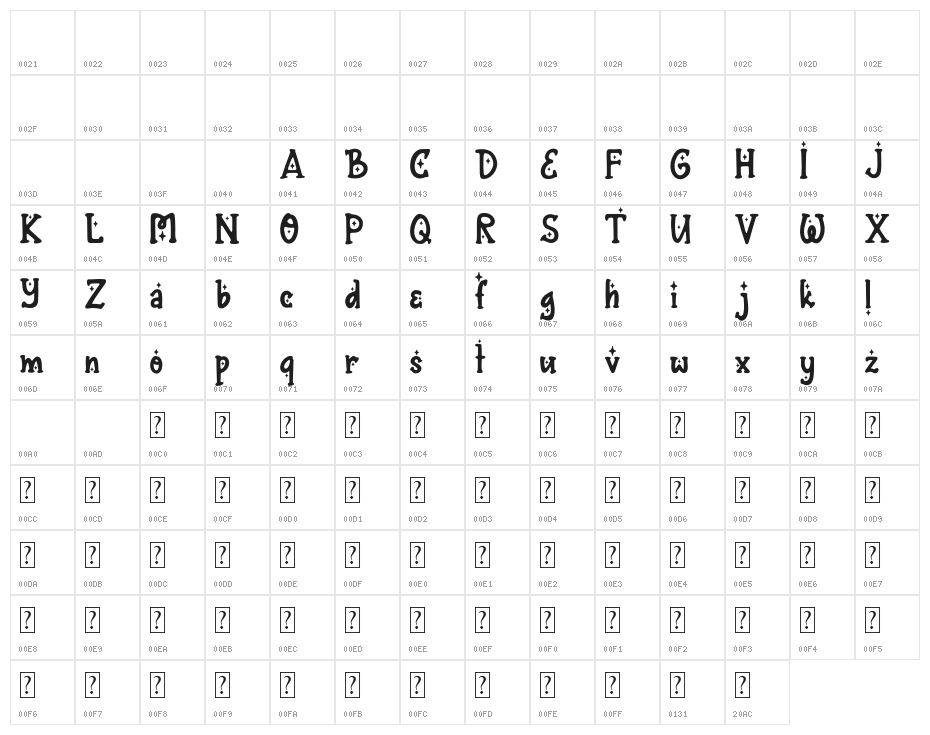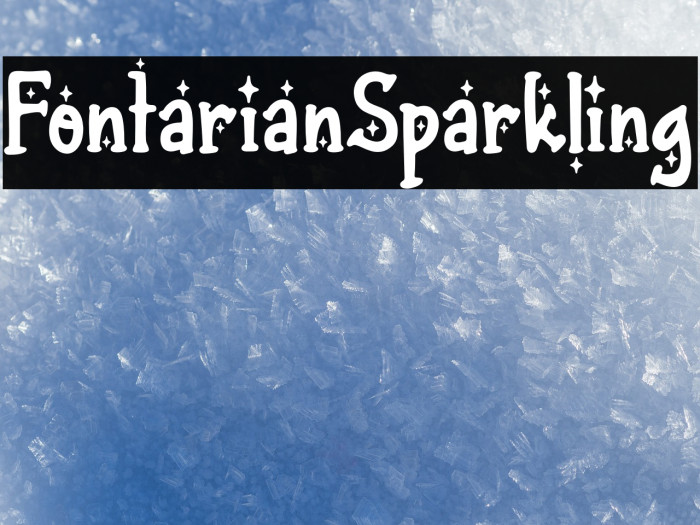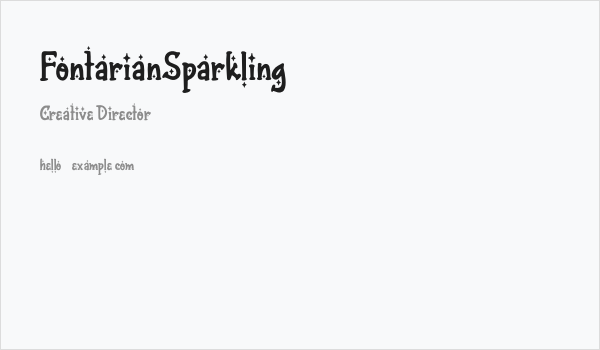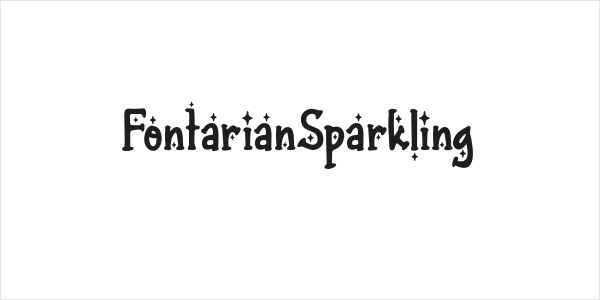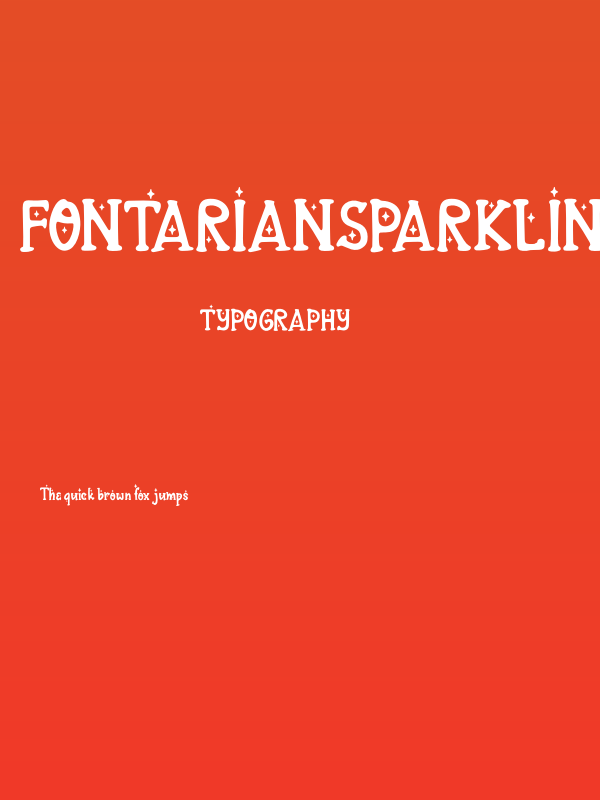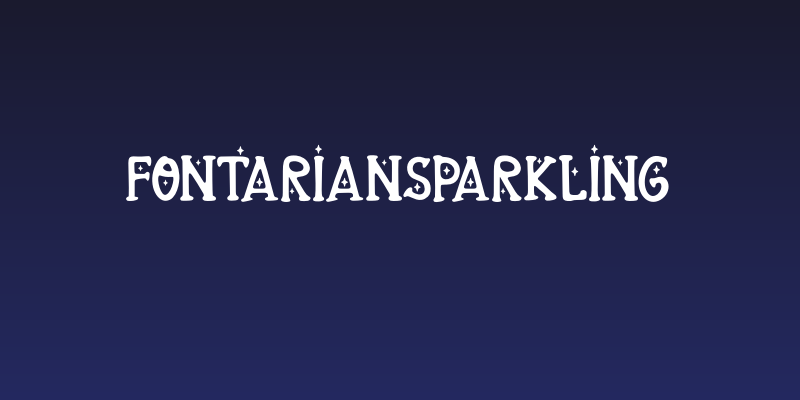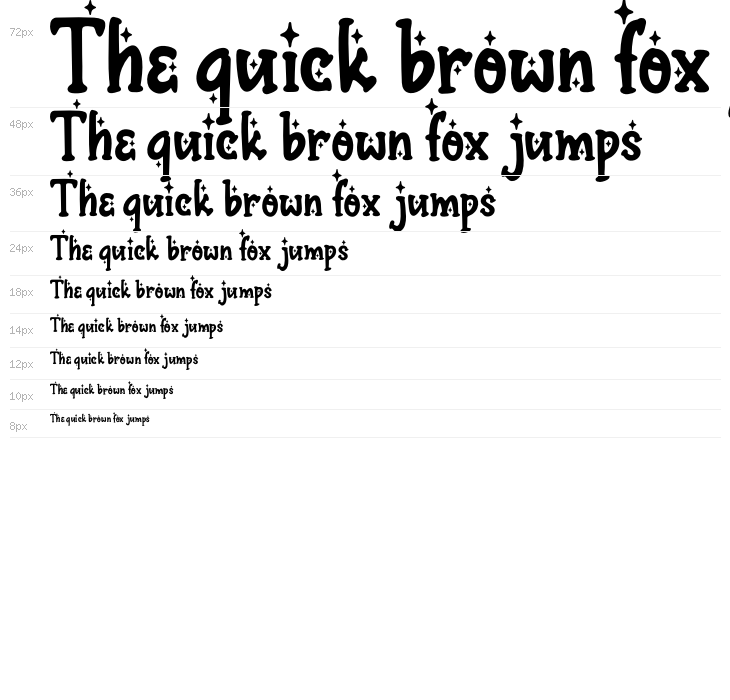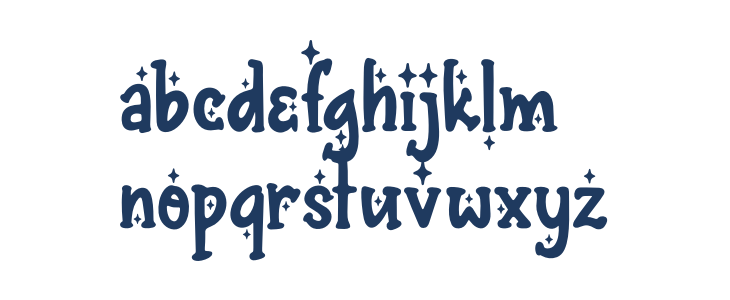
FontarianSparkling Font
FontarianSparkling Description
This whimsical font features playful, decorative elements that resemble sparkling stars integrated into each character. The letters are bold and rounded, with a unique charm that captures attention. The uppercase and lowercase letters maintain a consistent style, with the sparkling accents adding a touch of magic and fantasy. The numbers and special characters follow the same design, ensuring a cohesive look across all text. This font is ideal for projects that require a fun and enchanting aesthetic.
| Proposed Projects | Perfect for children's book covers, party invitations, fantasy-themed posters, and whimsical branding. |